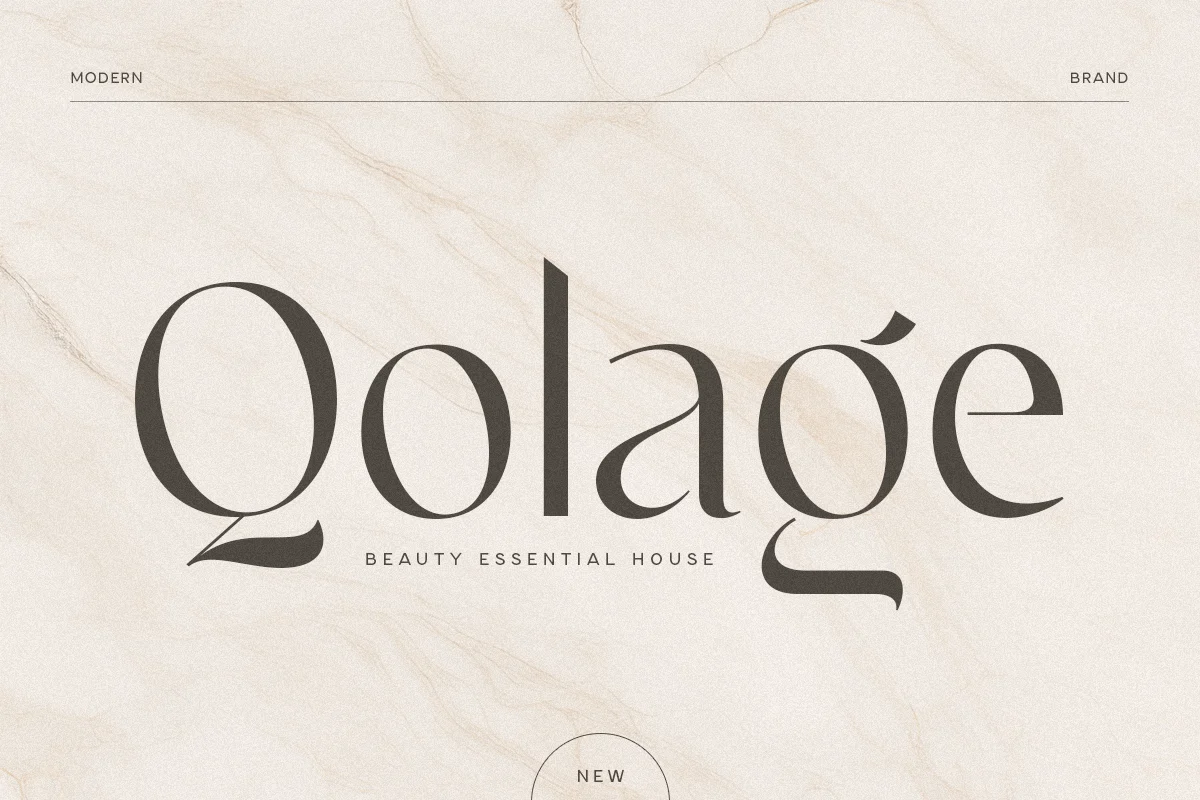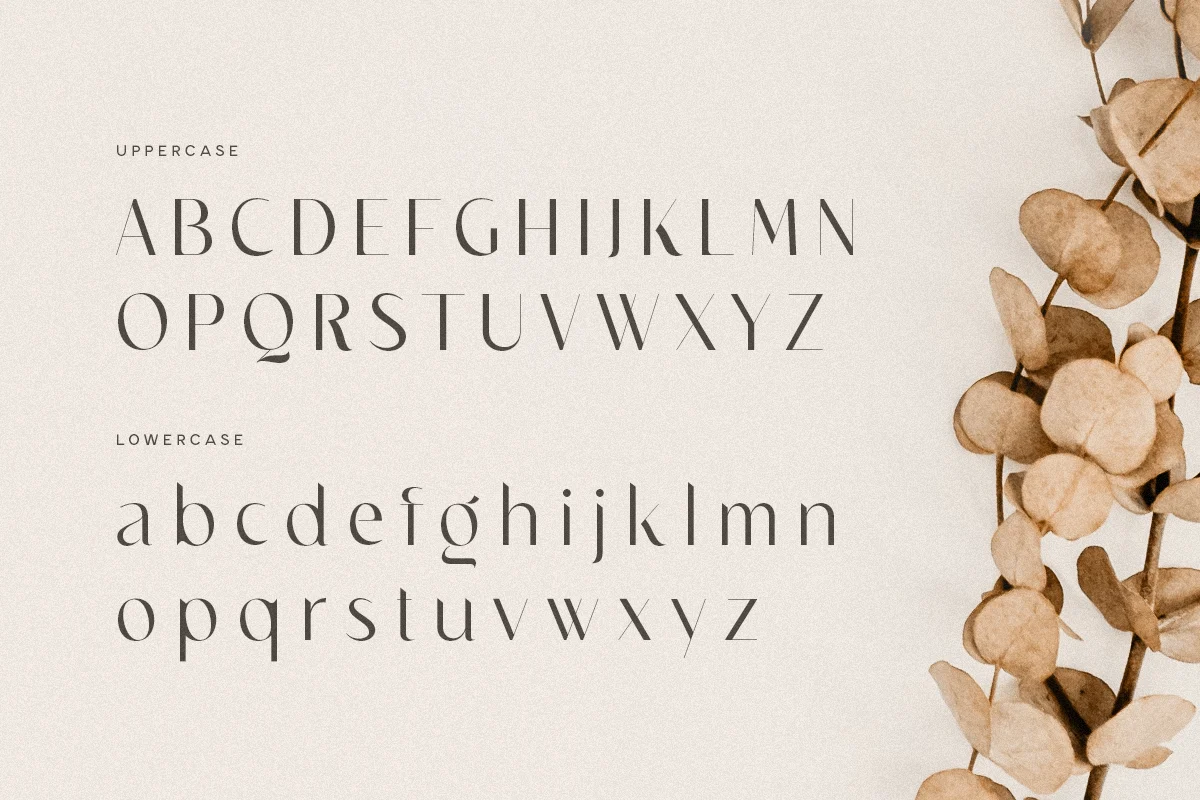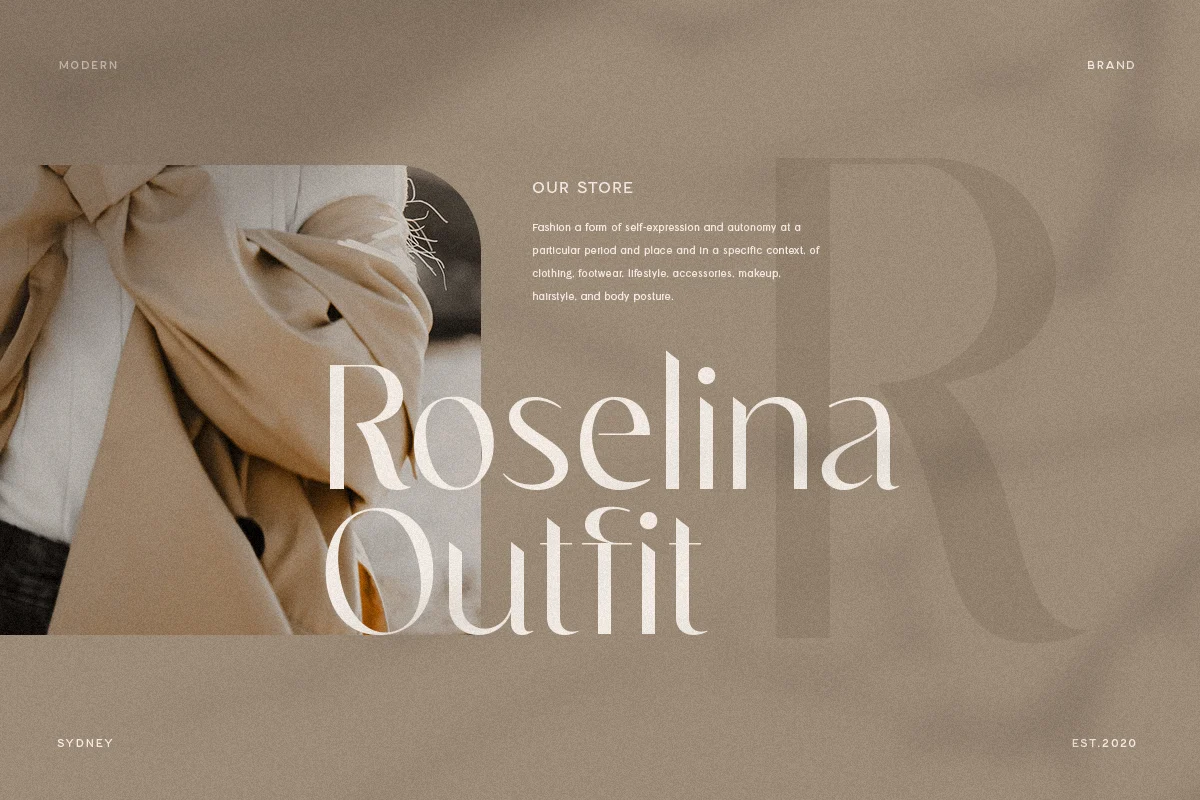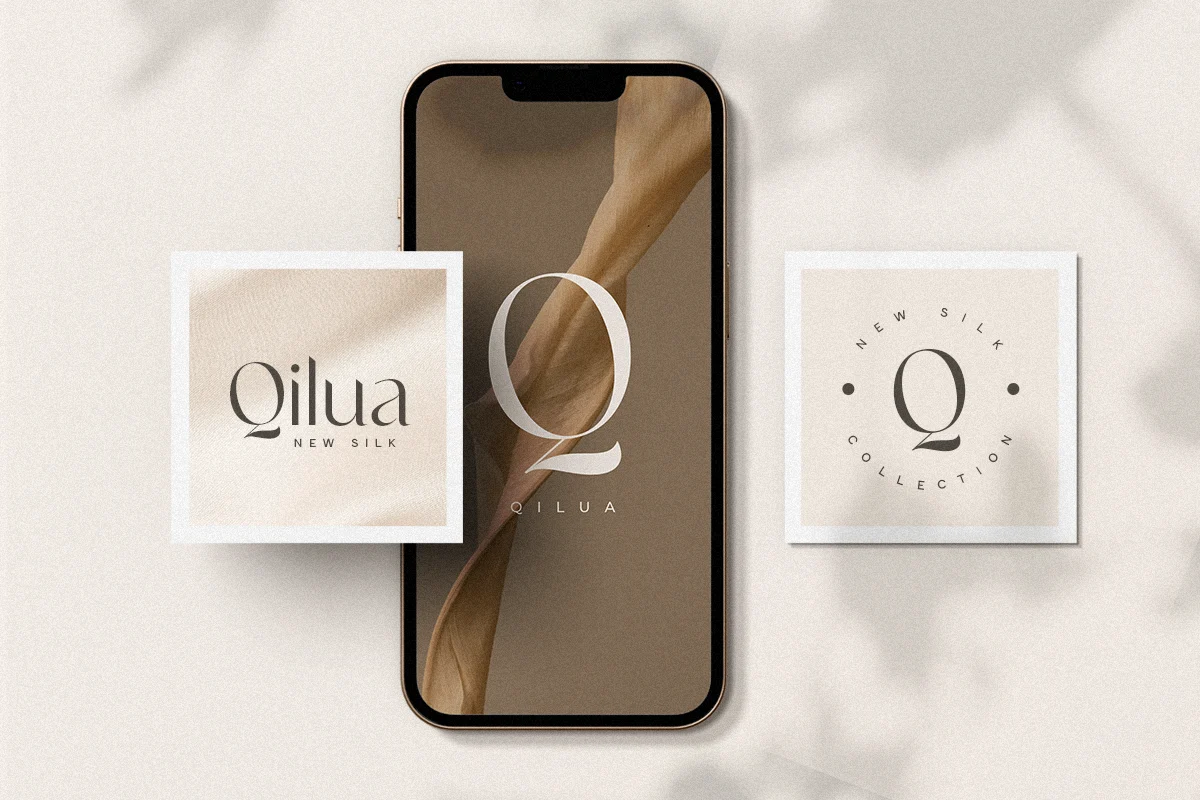
Chicago – Classy Luxury Logo Font
Introducing Chicago, the epitome of luxury and cinematic elegance in a Sans serif font. Perfectly crafted for sophisticated and high-end designs, Chicago brings a touch of class and refinement to any project.
Chicago Font Features:
- Luxury Design: A luxurious sans serif style ideal for upscale and sophisticated projects.
- Cinematic Appeal: Perfect for film titles, movie posters, and dramatic visual content.
- Versatile Usage: Suitable for branding, editorial layouts, elegant invitations, and more.
Elevate your designs with Chicago, the luxury serif font that exudes sophistication and style. Whether for high-end branding, cinematic projects, or elegant typography, Chicago adds a timeless and refined touch to your work. Make a statement with Chicago and let your designs shine with unparalleled elegance.